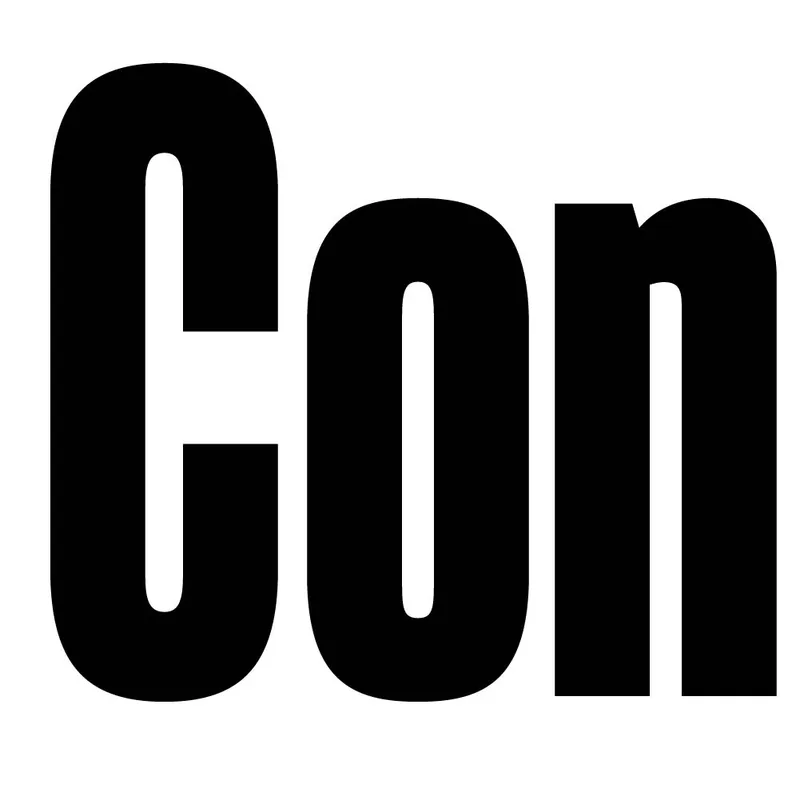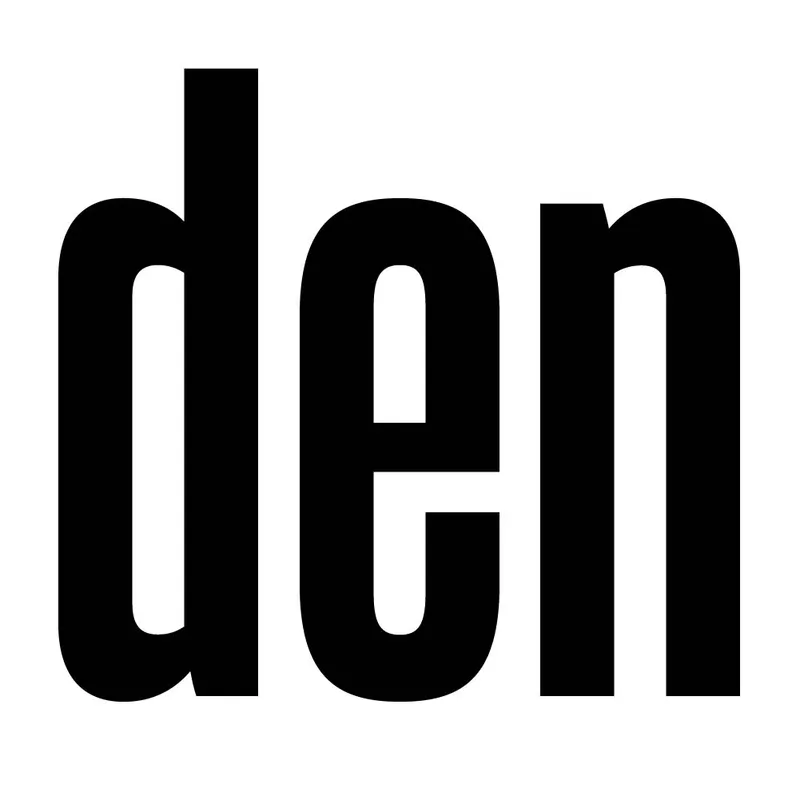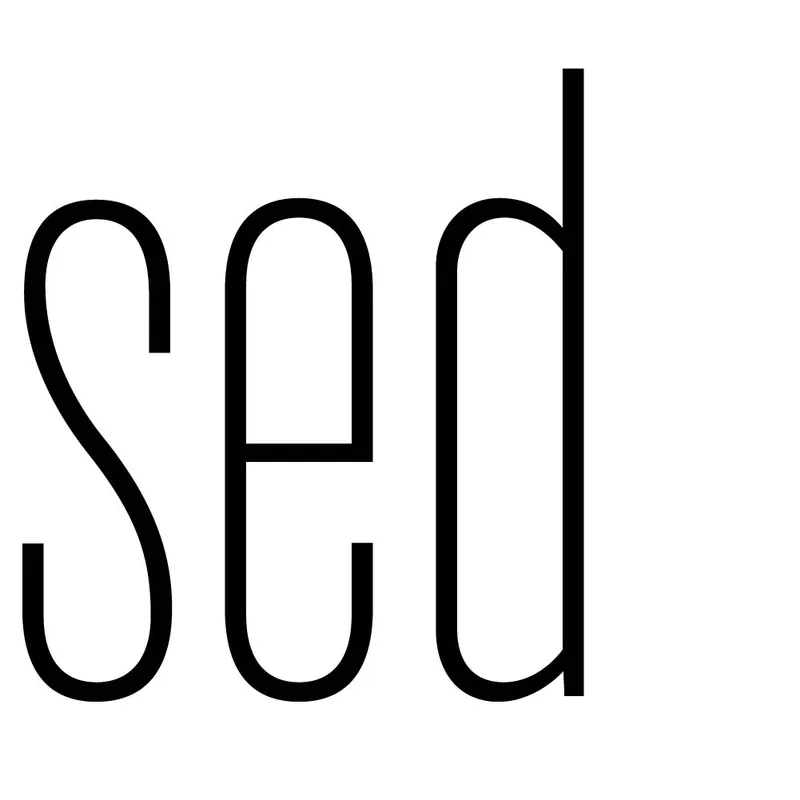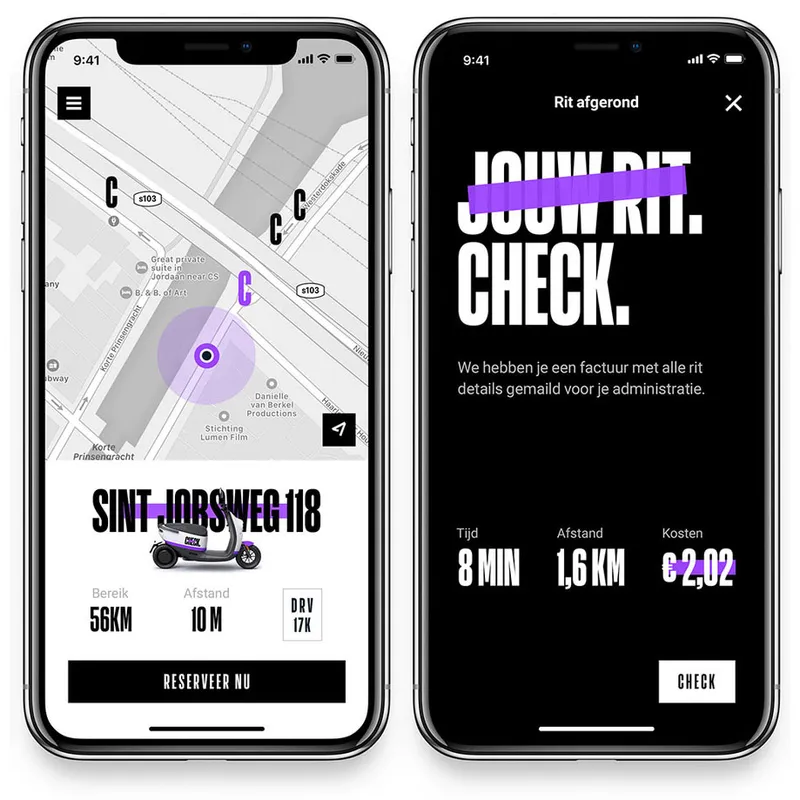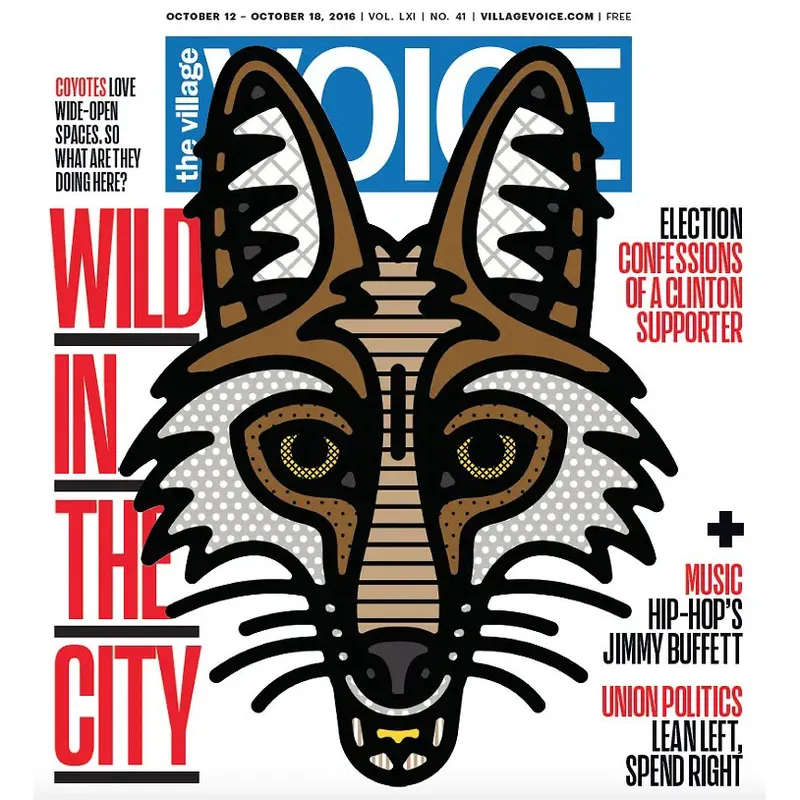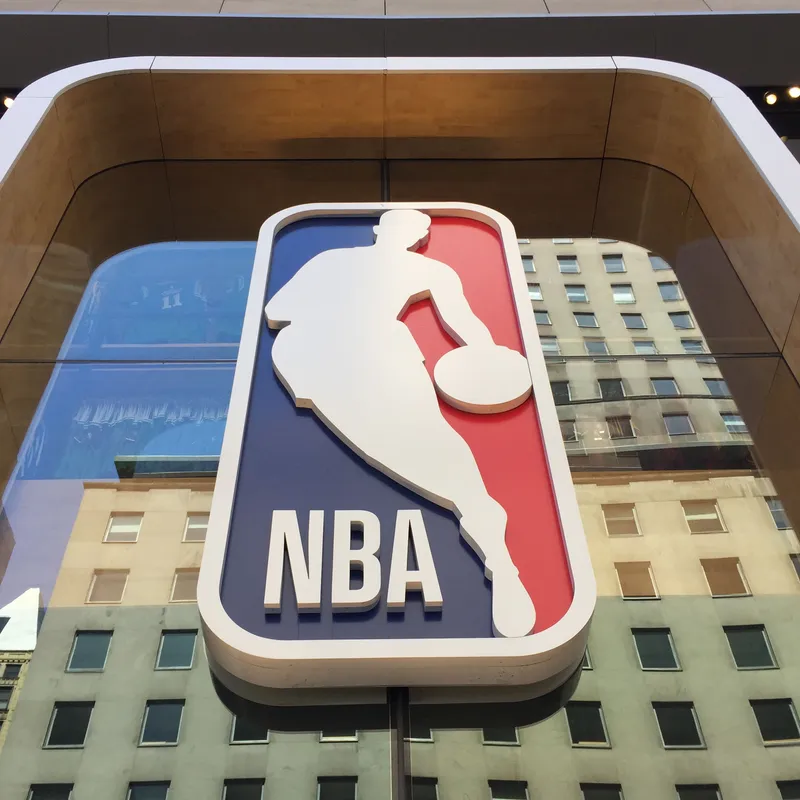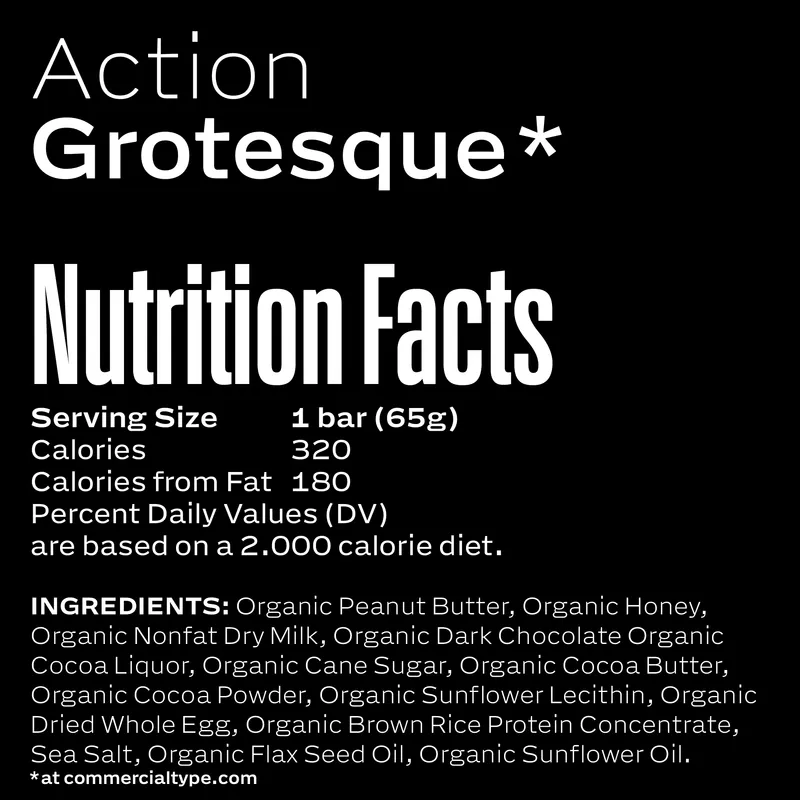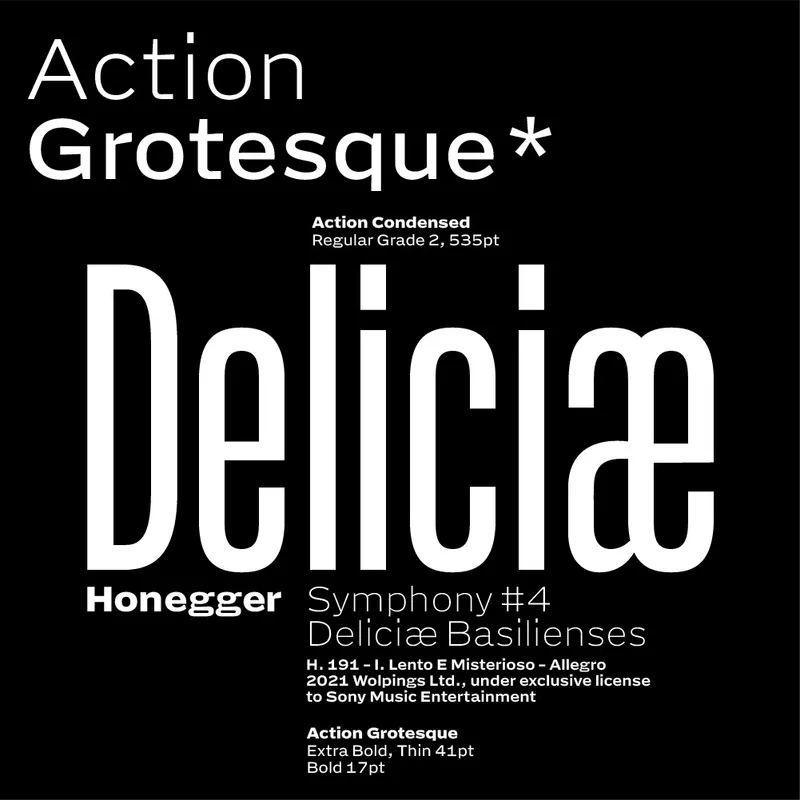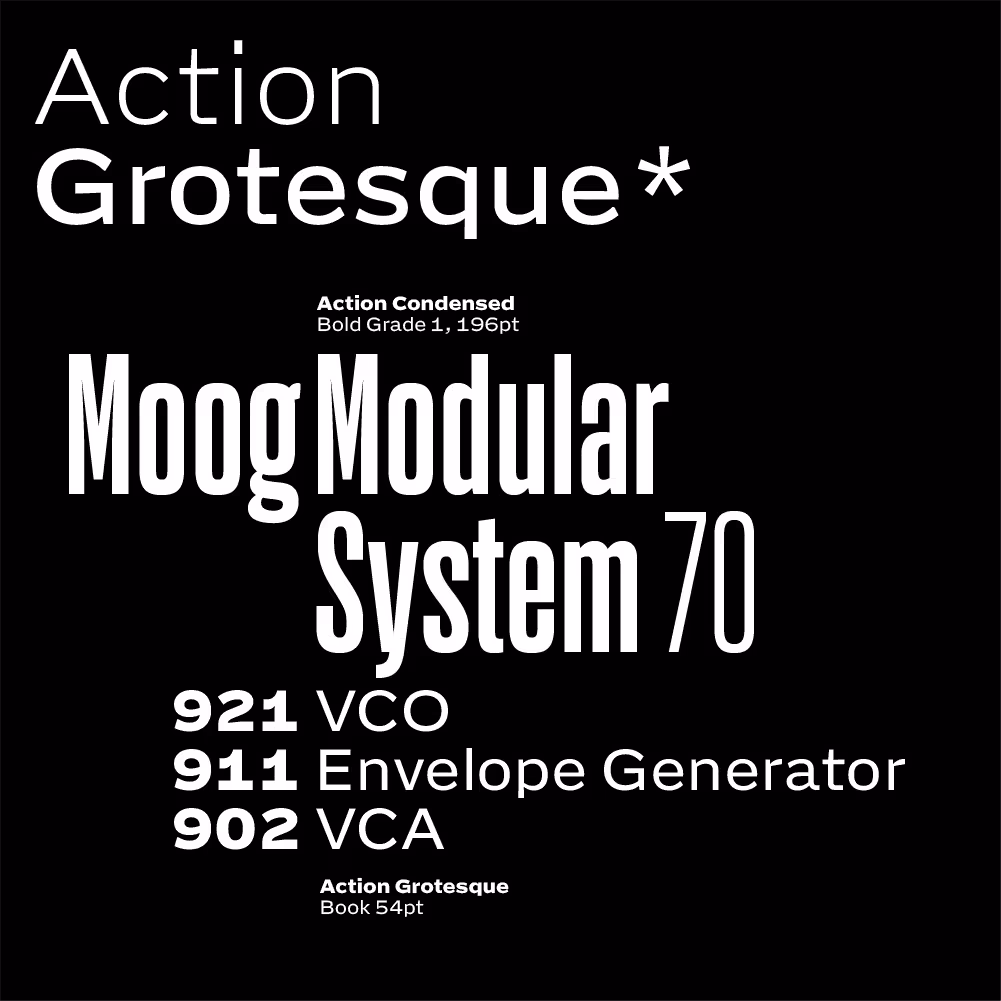
Action Condensed: a graded, flat sided headliner. Available at Commercial Type.
Action Condensed
Action Condensed was designed by LettError and is available at Commercial Type
Action Condensed Bold Grade 3
NBA × OCD
In 2017 Original Champions of Design picked Action Condensed for a refreshed version of the NBA logo and identity. Commercial Type and OCD made some small but very cool modifications. Uh, pretty cool to see Action Condensed on such a scale.
Action Condensed Medium Grade 2
Action Condensed started as a headline font for the Letterror website.
Action Condensed Light Grade 1
Ermin Međedović wrote in his 2016 Typographica.org review of Action Text: “A distinctive R, g, y, and 3 give this typeface its own character. And look at the £! The uppercase diacritics are on the edge of visibility and may not be acceptable for sizes smaller than 24 points, but this is more of a concern for print design, and Action is best when it’s big and on screen.”
Check this Action Condensed used in the apps and identity of scooter mobility platform CHECK. Image via FontsInUse.
Subtle weight variations for typography hierarchy at small sizes. Complex typography for every medium. Image via FontsInUse
Pairing suggestion with Action Grotesque